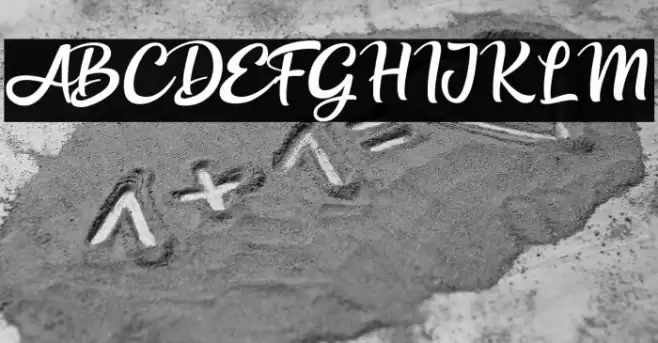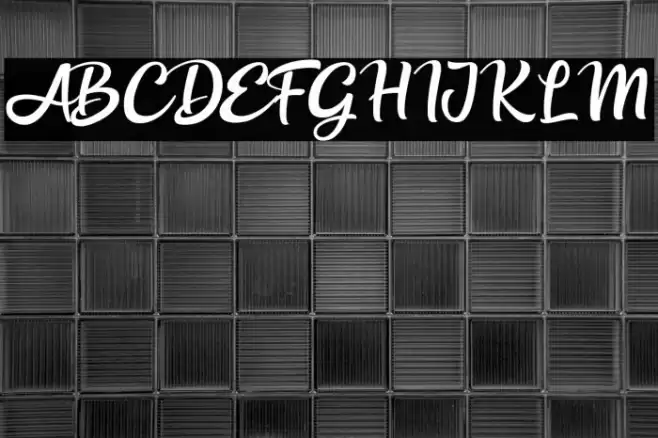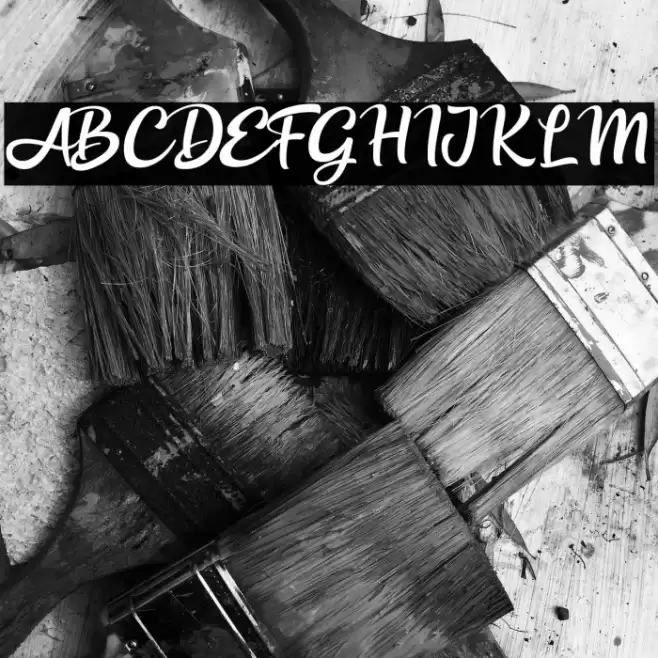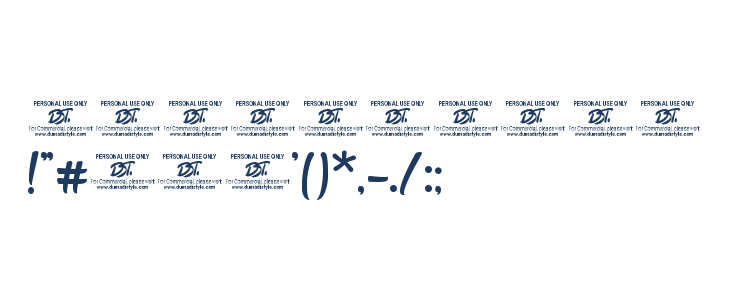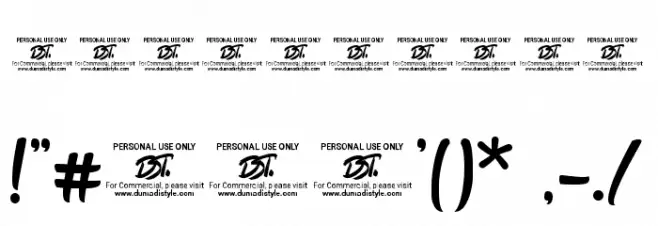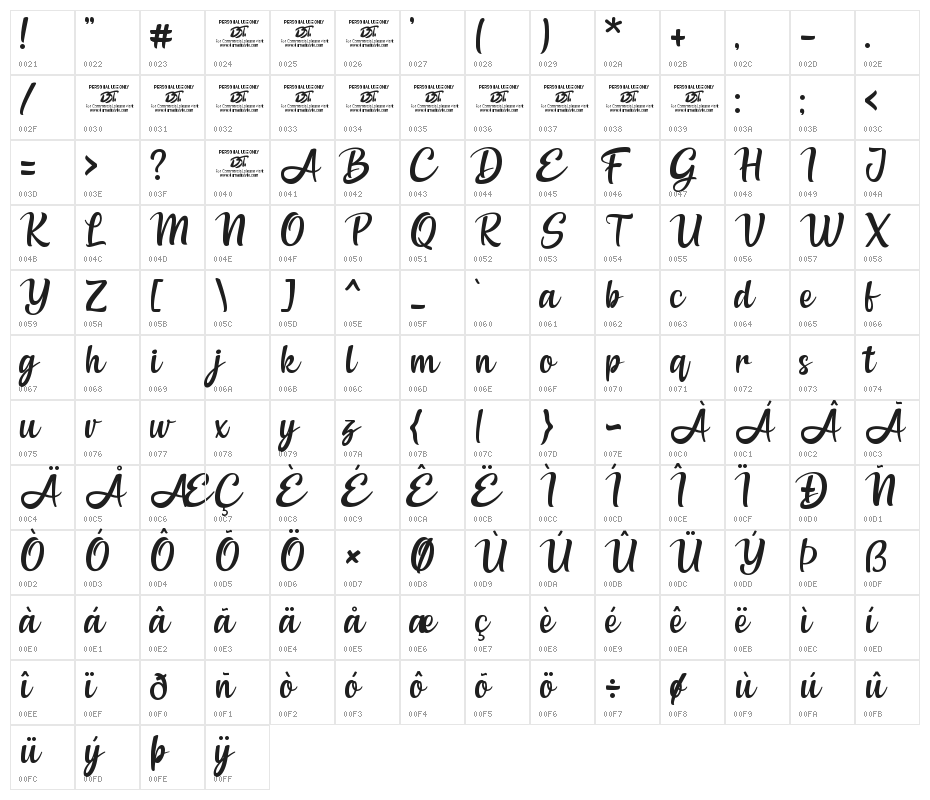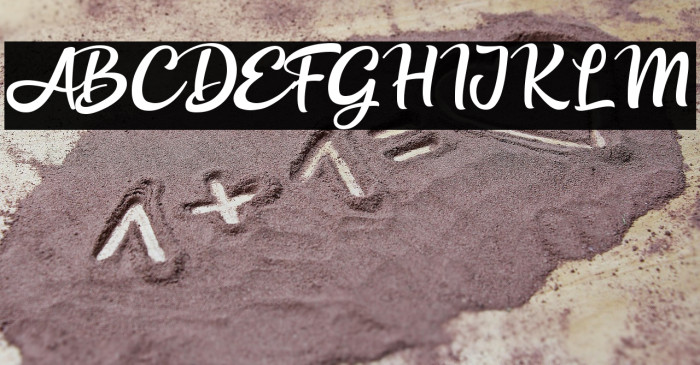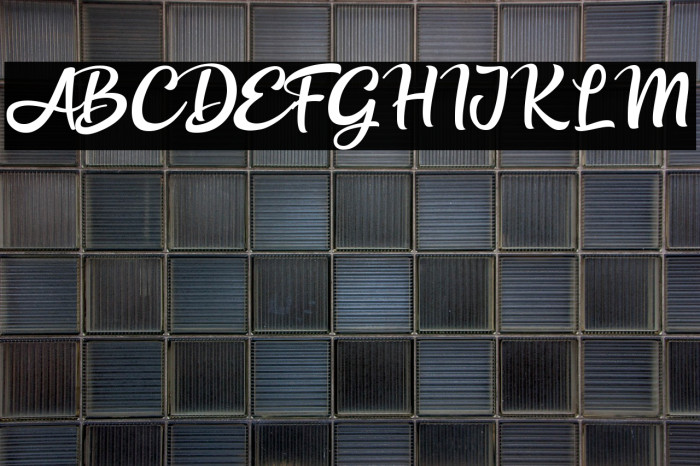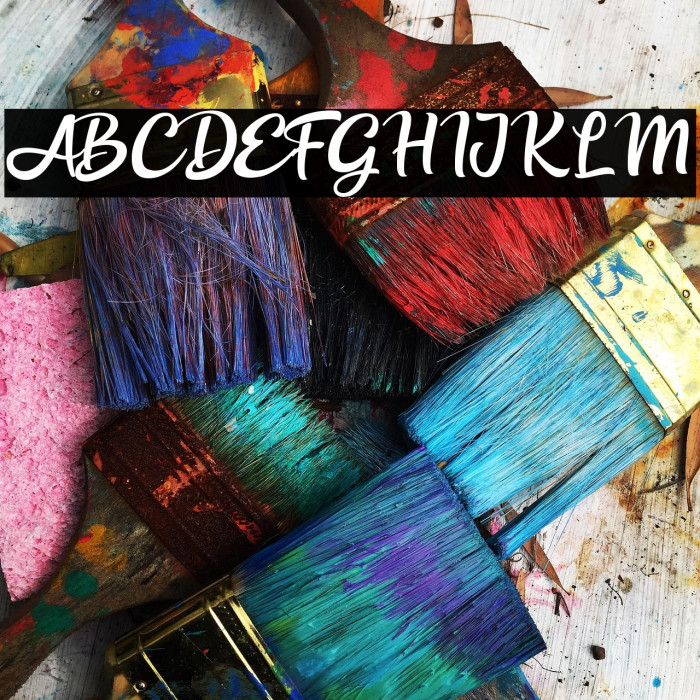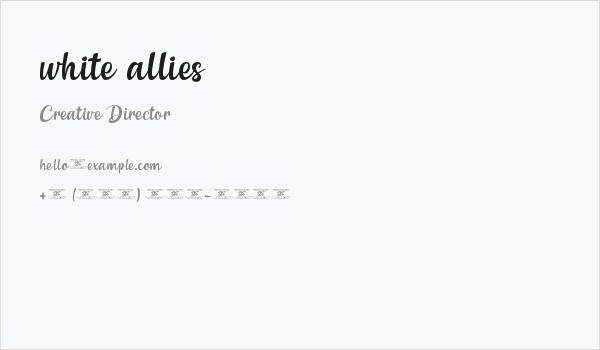
white allies Font
white allies Description
This font features a flowing, cursive style with elegant loops and swashes, giving it a handwritten appearance. The uppercase letters are bold and expressive, while the lowercase letters maintain a consistent flow, enhancing readability. The characters are slightly slanted, adding a dynamic feel to the text. The font includes a full set of uppercase and lowercase letters, numbers, and a variety of special characters. Its design is both stylish and versatile, making it suitable for a range of creative projects.
A flowing, cursive font with elegant loops and a handwritten appearance from Uncategorized fonts.
- Font: white allies
- Proposed Projects: Ideal for wedding invitations, greeting cards, branding, and logo design.
- Use Case: Logos, Invitations, Greeting Cards